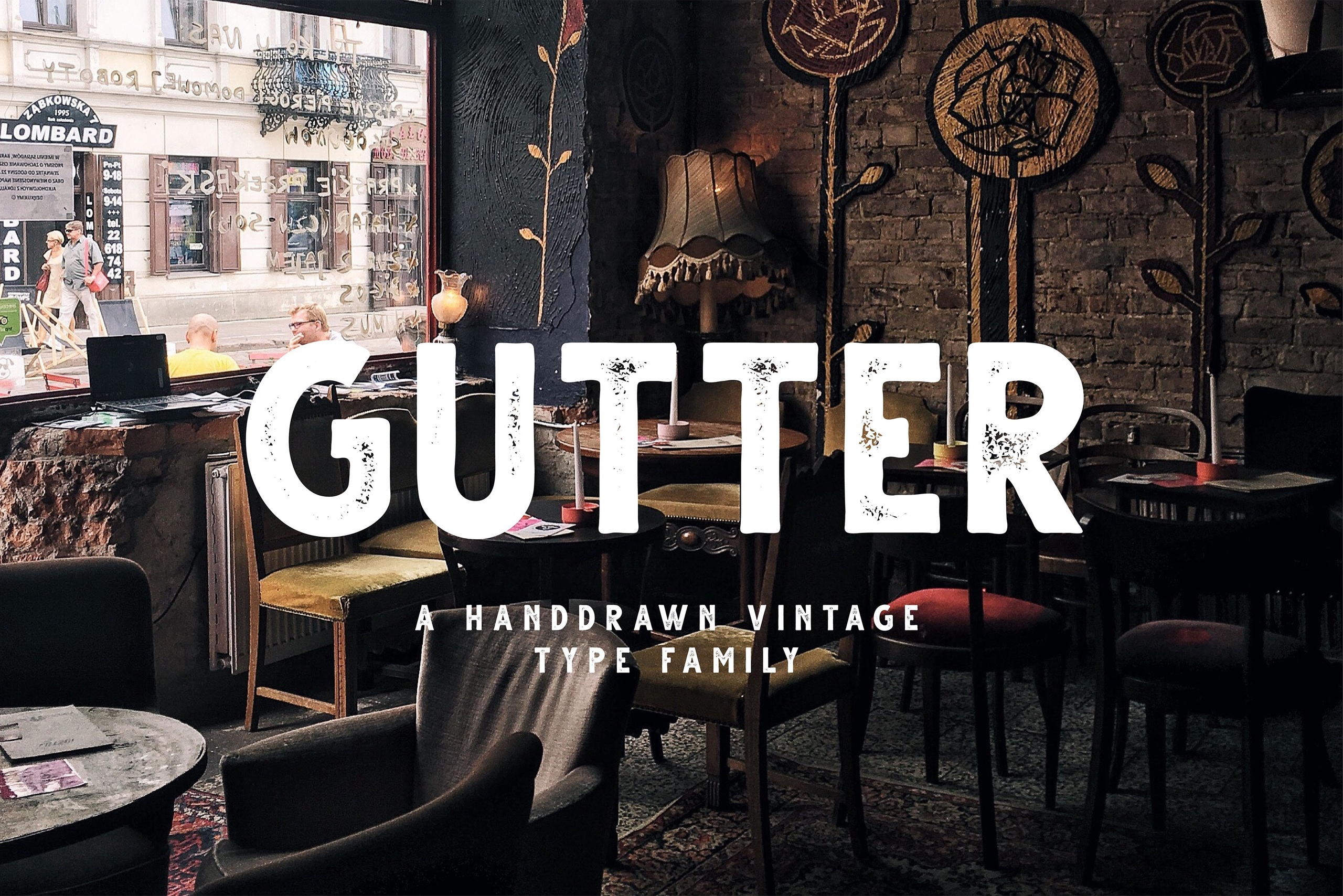
Gutter - Handdrawn Sans Font
Gutter Handdrawn Sans Font is perfect for urban streetwear brands, underground music labels, graffiti-inspired designs, alternative fashion collections, indie record covers, rebellious youth marketing, street art galleries, skateboard graphics, urban lifestyle brands, edgy social media campaigns, raw advertising materials, and authentic counter-culture communications.
What makes Gutter Handdrawn Sans Font exciting is its raw authenticity that captures the unfiltered energy and rebellious spirit of street culture through hand-sketched letterforms that refuse to conform to conventional design standards. This compelling typeface embodies the essence of urban creativity and grassroots expression, combining rough-hewn character with genuine street credibility that resonates with audiences seeking authentic alternative culture and underground artistic movements. The font's gritty personality and organic imperfections create immediate connection with street culture while maintaining the legibility essential for commercial applications that demand authenticity over polish. Its rebellious character makes it perfect for brands that want to communicate genuine street credibility, artistic rebellion, and the transformative power of underground culture and urban artistic expression.
The Gutter Handdrawn Sans Font family includes regular and bold weights, featuring street alternates, rough ligatures, and urban-inspired design elements. The character set incorporates graffiti symbols, street numerals, and rebellious punctuation marks that enhance the font's underground character and provide designers with comprehensive street typography solutions for authentic urban brand expressions.
Whether you're creating street culture brands, designing underground marketing materials, or developing rebellious communications, Gutter Handdrawn Sans Font Free Download provides the raw authenticity your street-focused projects require. This premium handdrawn font excels in applications where street credibility and authentic rebellion are crucial for brand positioning and underground audience engagement in alternative culture markets. The font's gritty qualities work magnificently across apparel graphics, album covers, and digital platforms, making it an essential tool for designers creating memorable street culture experiences. Underground brands and alternative companies choose this font for its ability to communicate authentic street culture while maintaining professional functionality and market appeal in rebellious demographics. The comprehensive character support includes street symbols and urban glyphs, expanding its versatility for global street culture applications and multilingual underground communications. Professional designers appreciate its perfect balance of raw authenticity and commercial viability, ensuring projects remain both street-credible and practically effective for alternative audiences. When you incorporate this exceptional handdrawn font into your street communications, you're selecting a typography solution that celebrates urban creativity and authentic rebellion, ensuring your brand connects with street culture enthusiasts while maintaining the underground credibility essential for success in alternative markets and street culture industries that value genuine expression, artistic freedom, and the courage to challenge mainstream design conventions through raw, authentic visual communication that speaks directly to the hearts of urban creatives and counter-culture communities.